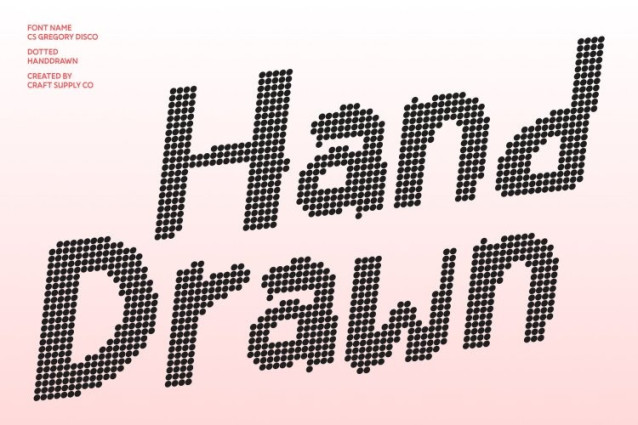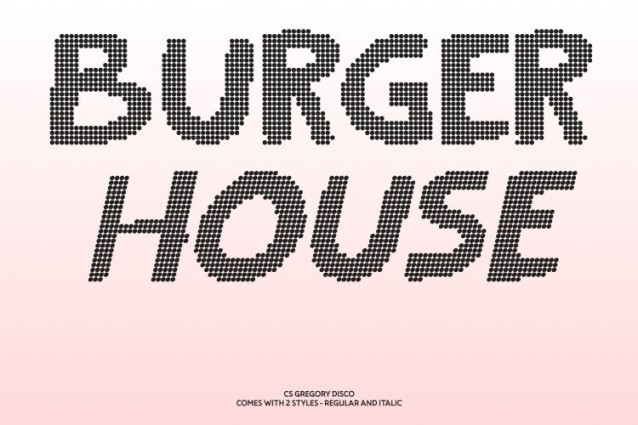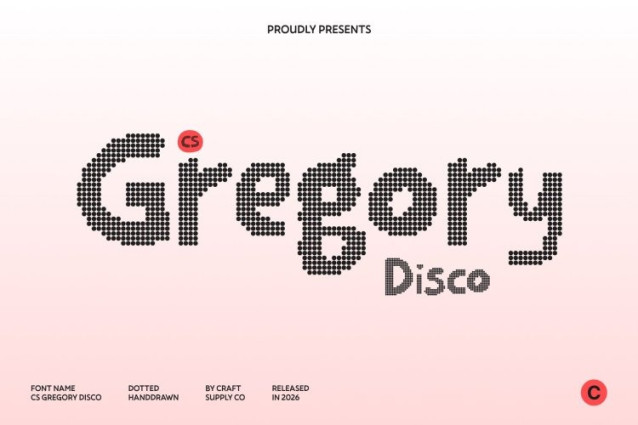
CS Gregory Disco Font
CS Gregory Disco Font This is a cheerful and distinctive display font that blends modern sans serif structure with the spontaneity of handwritten expression, infused with a light disco attitude. Each character carries an unconventional twist slightly irregular, bouncy, and full of movement creating a lively rhythm that feels human, expressive, and fun.
Playful Shapes with a Happy, Funky Vibe
Embracing an “ugly-beautiful” aesthetic, this font celebrates imperfection as part of its charm. The quirky letterforms and playful proportions give the typeface a joyful, funky character that feels relaxed and confident. Its disco-inspired liveliness adds bounce and flow, making text feel cheerful, approachable, and visually engaging.
Perfect for Bold, Creative, and Youthful Branding
This font shines in posters, logos, editorial layouts, and expressive branding where personality takes center stage. Its animated rhythm and handcrafted feel make it ideal for youth-oriented brands, creative studios, art events, lifestyle campaigns, and playful visual identities that want to stand out with confidence and charm.
Typography That Dances and Smiles
More than just a font, this is a celebration of joy, creativity, and individuality. It turns words into playful expressions, adding a sense of movement and happiness to every layout. Use it when you want your typography to feel alive—radiating fun, creativity, and a bold, cheerful spirit straight from the dance floor.